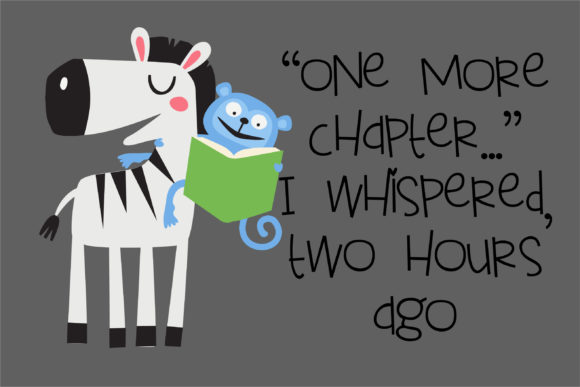
Introduction to Cuff and Link Font
Have you ever been working on a creative project and you stumble upon a design resource that makes everything fall into place? That’s exactly what happened when I discovered the Cuff and Link Font. Its playful character and youthful vibe instantly lifted the mood of my workspace, and I knew I had to share it with fellow designers.
As a designer, you know the importance of having the right tools at your disposal. The Cuff and Link Font is a high-quality, free download that can add a touch of whimsy to any design project. With its transparent background and versatile style, it’s the perfect addition to any creative endeavor.
Whether you’re working on a branding project or a social media campaign, the Cuff and Link Font is a valuable asset to have in your design toolkit. Its happy feel and playful character make it a great choice for designers looking to add a bit of personality to their work.
Key Features of Cuff and Link Font
- Cuff and Link Font is a high-quality design resource perfect for creative projects, offering a unique and stylish aesthetic.
- With its high-resolution design, this font is ideal for use in print materials, such as business cards, brochures, and posters.
- The font size is scalable, making it suitable for use in a variety of contexts, from small text to large headings.
- Cuff and Link Font is a unique design element that can add a touch of sophistication to your creative project, setting it apart from more generic fonts.
Honest Review: Cuff and Link Font
I recently stumbled upon the Cuff and Link Font, and I must say it’s been a game-changer for my design projects. As a designer, I’m always on the lookout for high-quality fonts that can elevate my creative work.
The Cuff and Link Font is a great addition to any design resource library. It’s a free download, which is always a bonus, and it’s perfect for projects that require a touch of elegance and sophistication.
- ✨ Elegant and refined design that’s perfect for formal projects
- ⚠️ Limited character set, which may not be ideal for projects that require extensive text
- ⚠️ Not ideal for use in small font sizes due to the intricate design
Overall, I’m impressed with the Cuff and Link Font. It’s a great addition to any designer’s toolkit, and I’d definitely recommend it for any high-end or formal design project.
Use Cuff and Link Font in combination with other design elements to create a unique and creative project. Experiment with different font sizes and colors to achieve the desired effect. You can also use the font to create a consistent brand identity across all your marketing materials.
Cuff and Link Font is ideal for creating stylish and modern designs for fashion, lifestyle, and entertainment projects. It’s also perfect for creating invitations, posters, and social media graphics. With its high-quality design and transparent background feature, Cuff and Link Font is a valuable resource for any creative project.